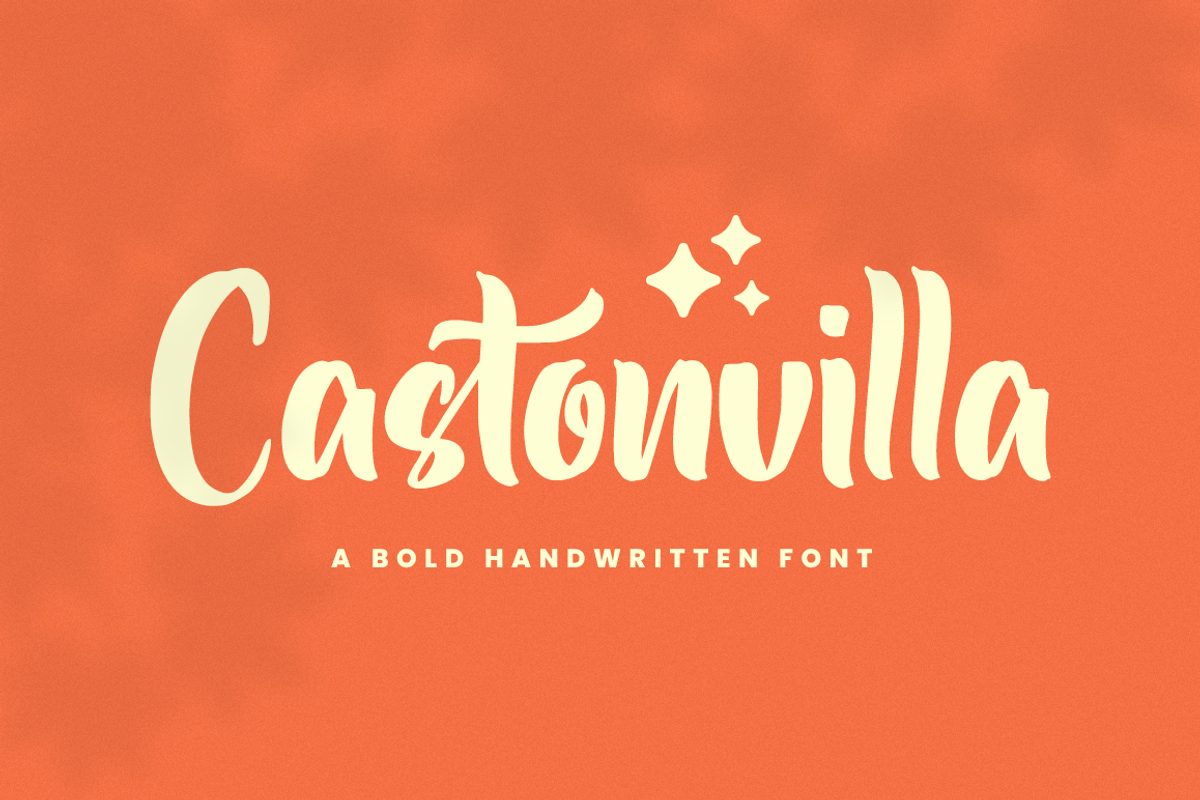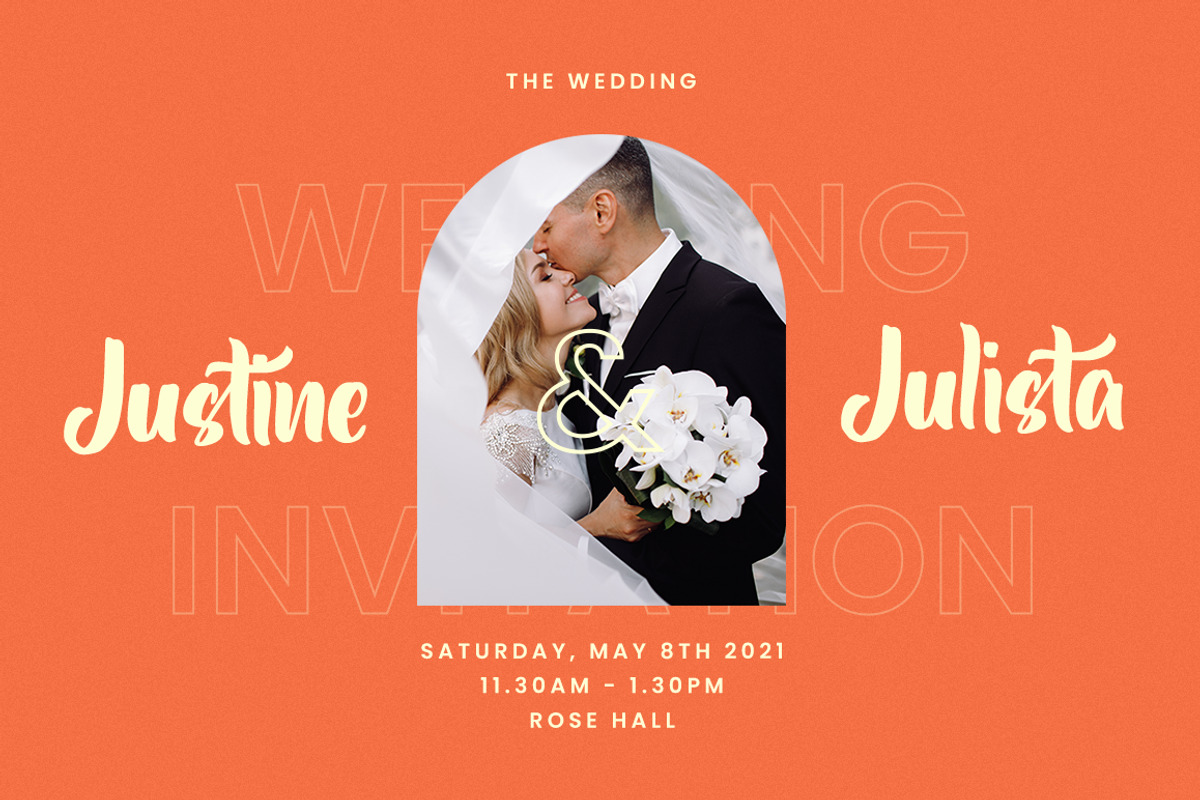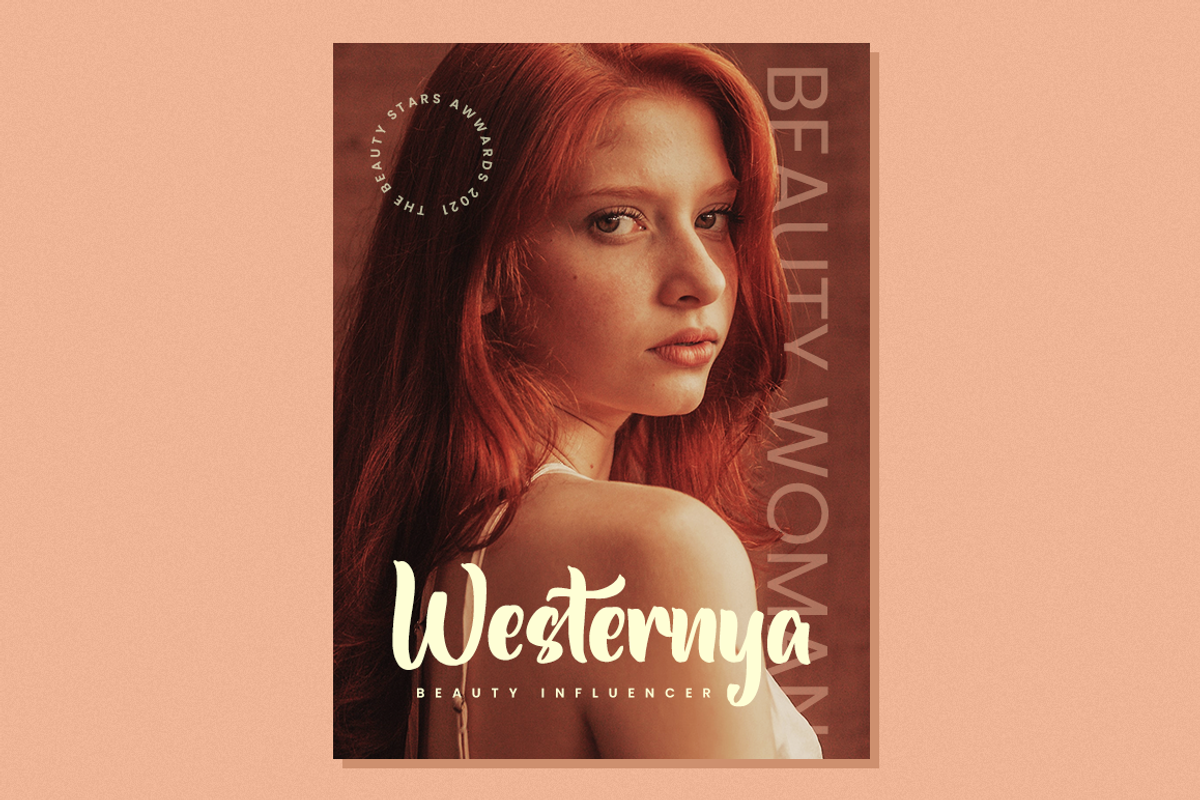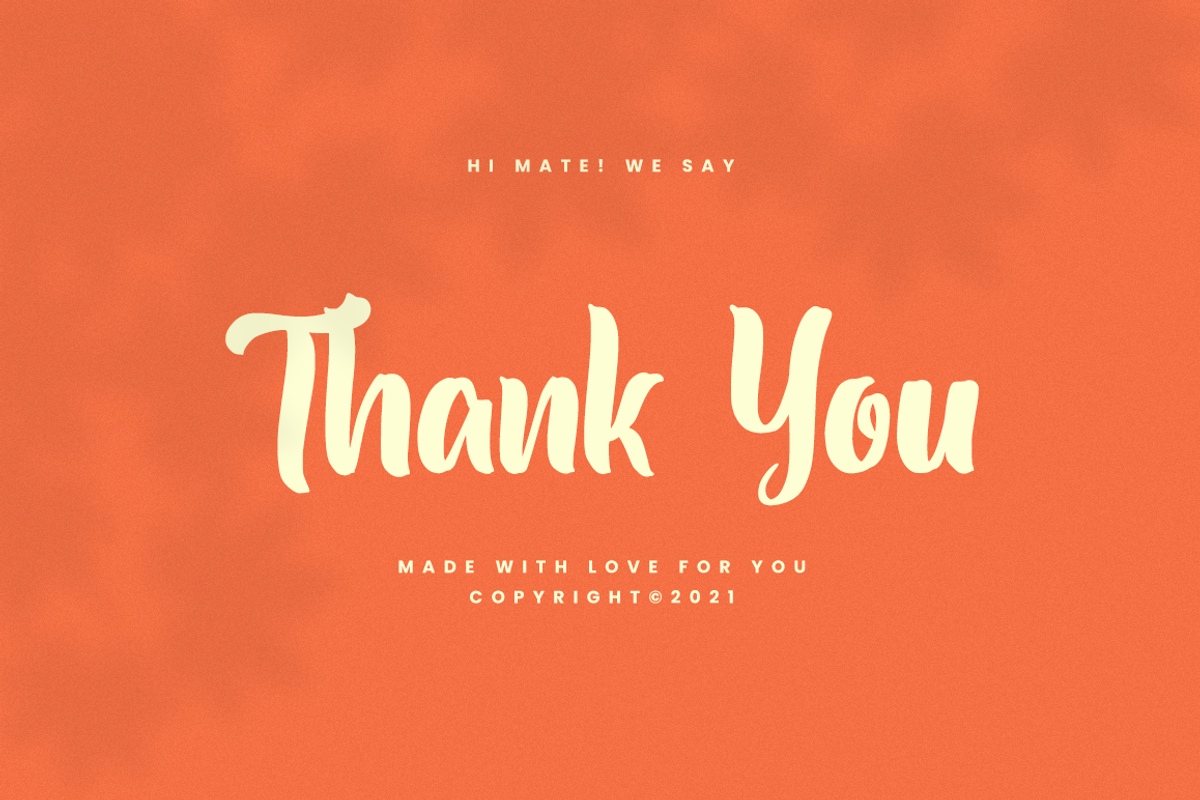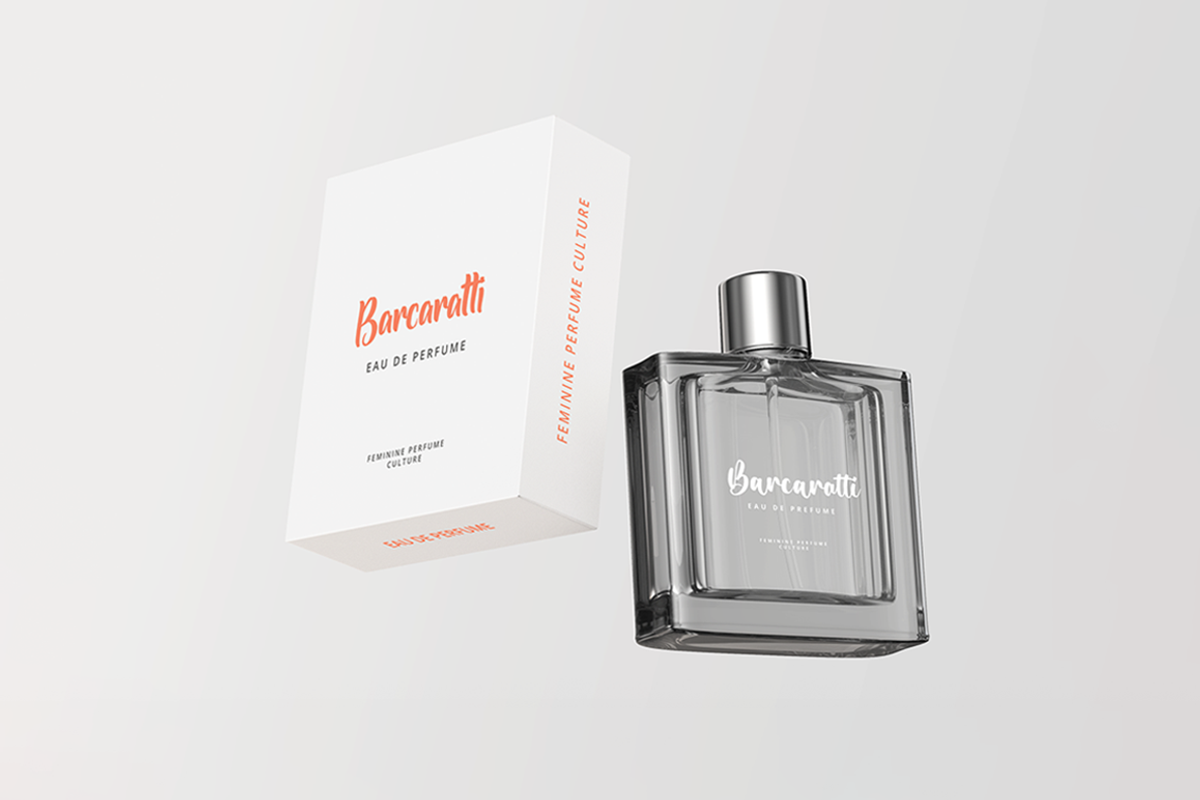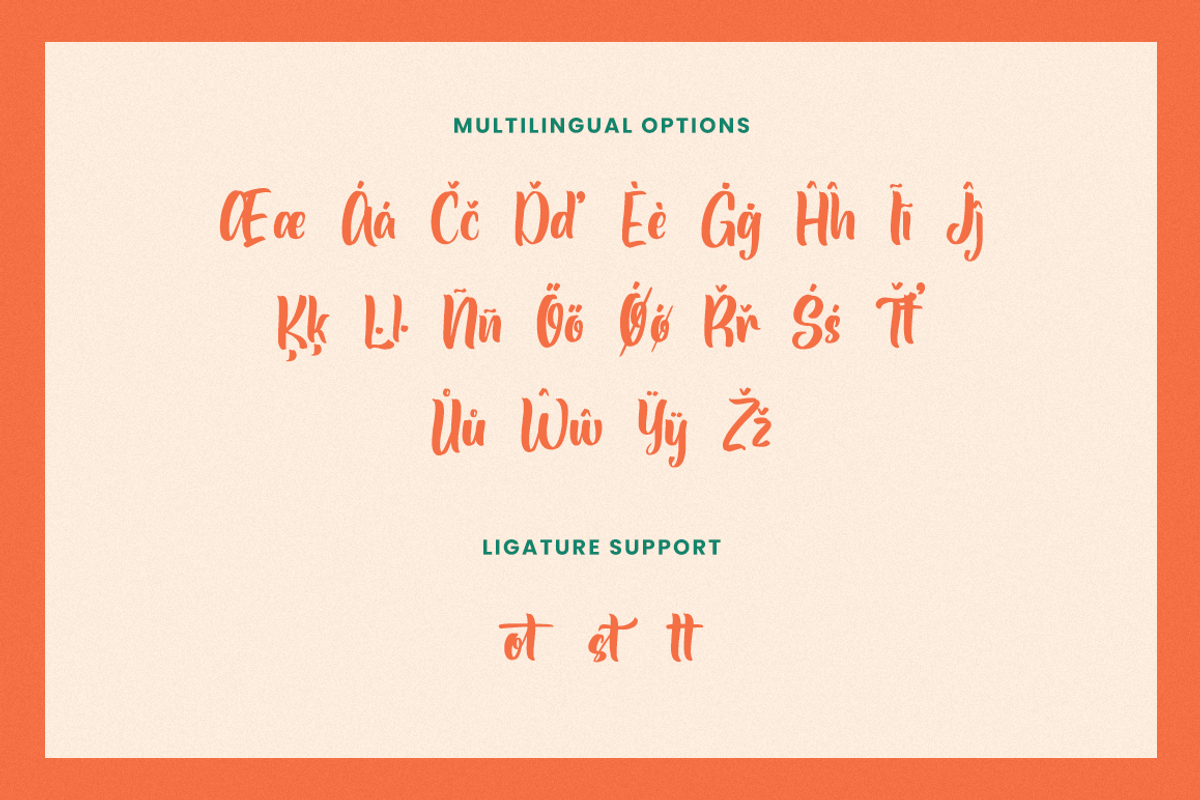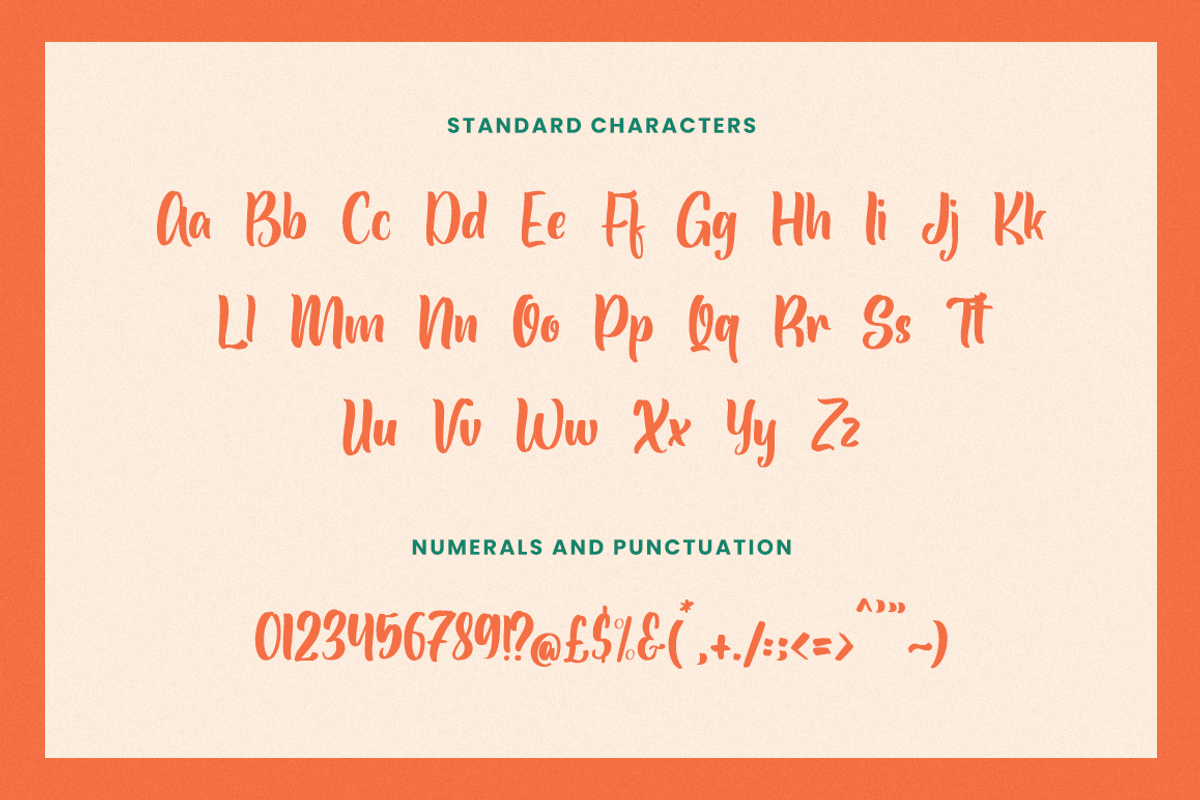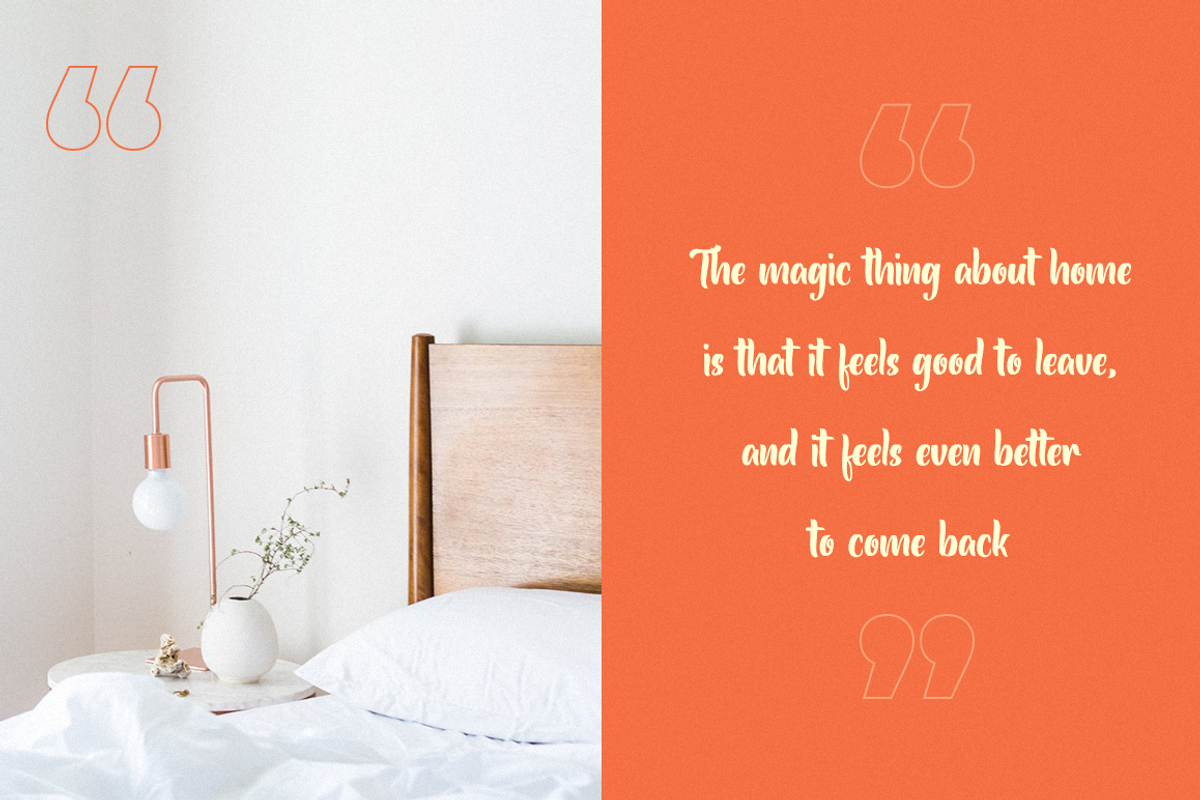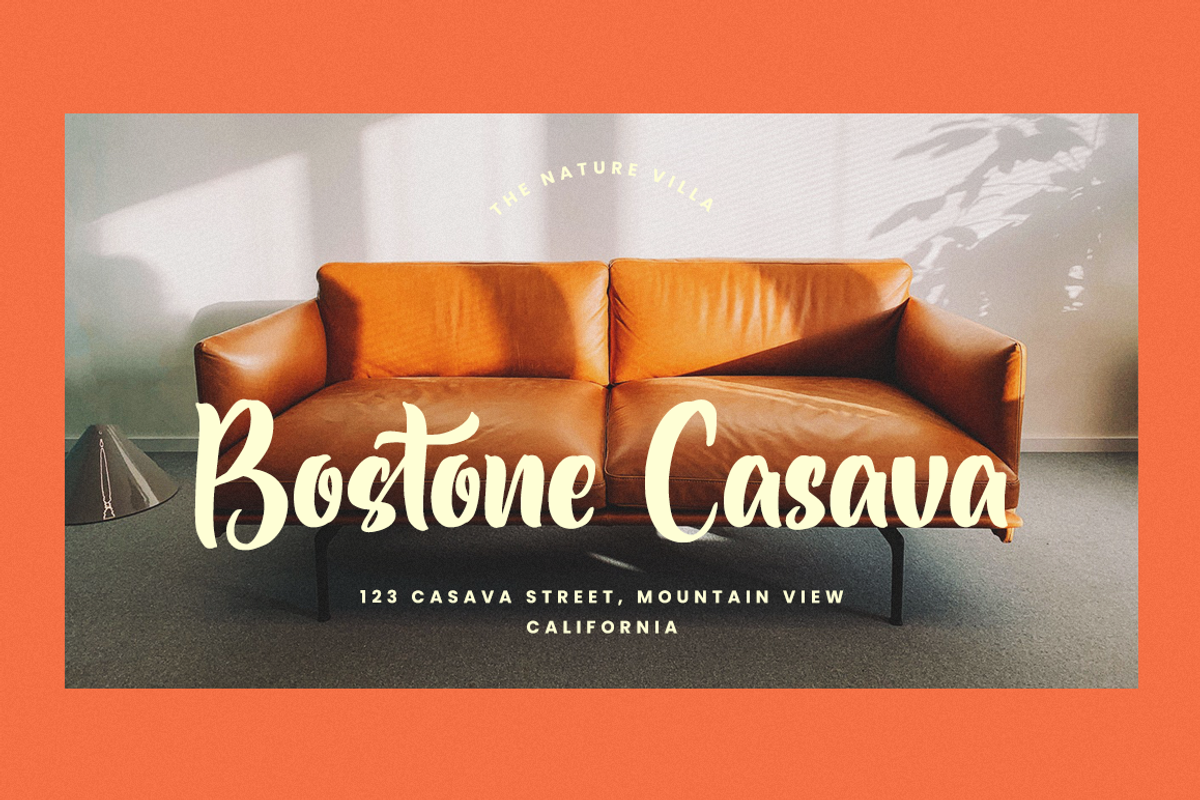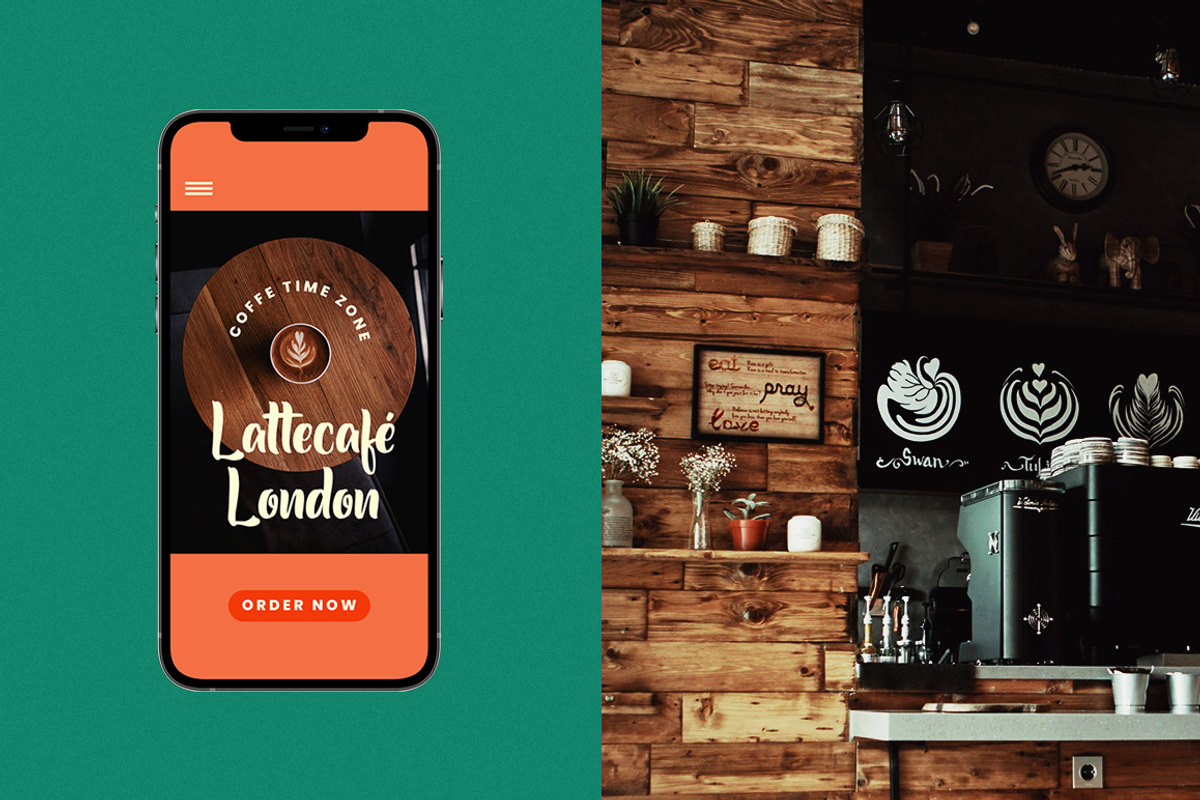
Castonvilla - Bold Handwritten Font
Castonvilla is a beautiful and refined script font. It has a classy, elegant and modern look that can be used for logos, branding, invitations, stationery, wedding designs, social media posts, and much more!